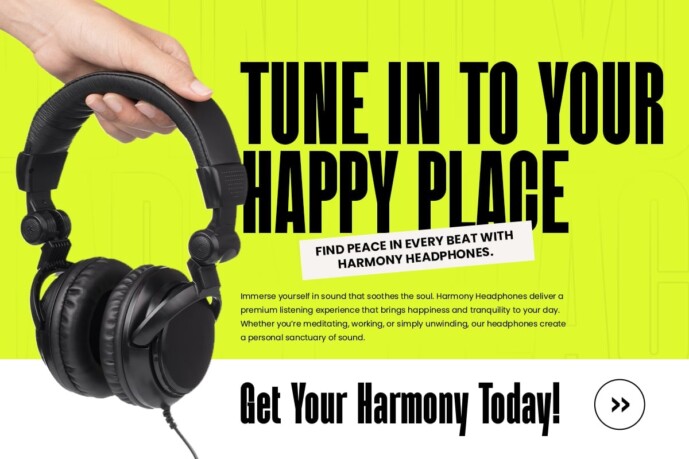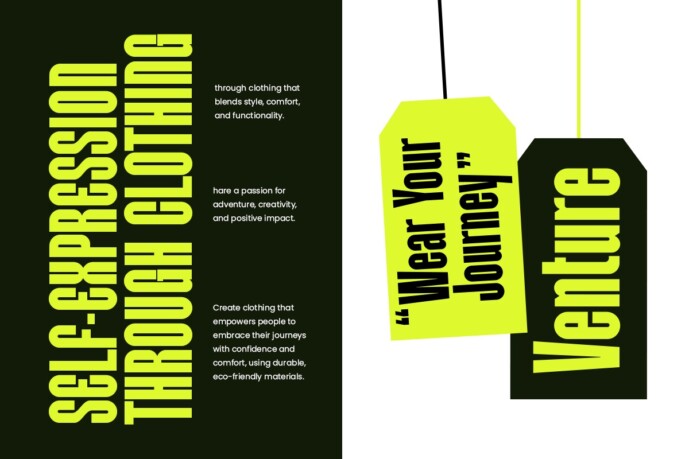
Nughile Font
Nughile Font is a bold, modern condensed font designed to make a statement. With its strong presence and clean lines, this font is perfect for projects that demand attention. Whether you’re creating a logo, headline, or other graphic design, Nughile brings a contemporary touch that captures the essence of the brand’s image.
Nughile’s condensed style makes efficient use of space while maintaining clarity and impact. Its bold weight ensures your message stands out, making it a great choice for advertising, promotions, and any creative work where you want to draw attention.
With Nughile, you have a versatile font that can adapt to a variety of design needs. Its clean lines and bold shapes create a dynamic look that is both professional and elegant, ensuring your designs resonate with your audience.